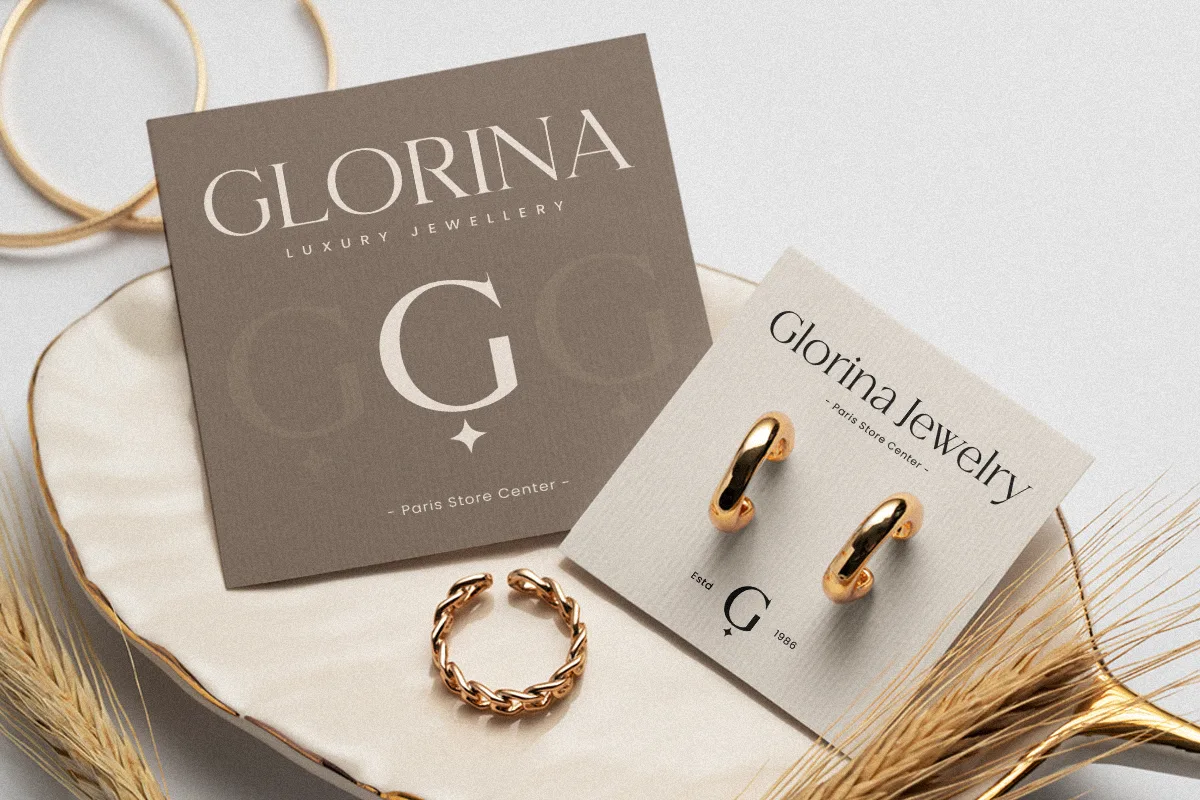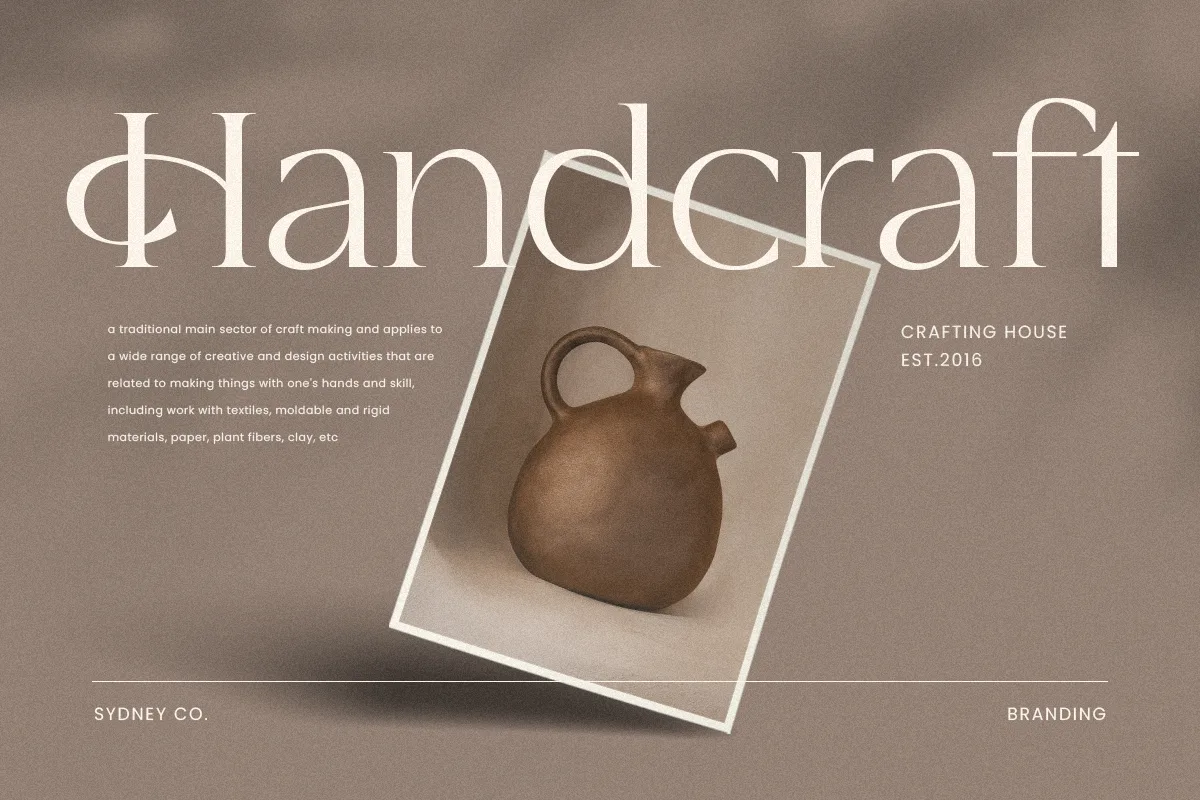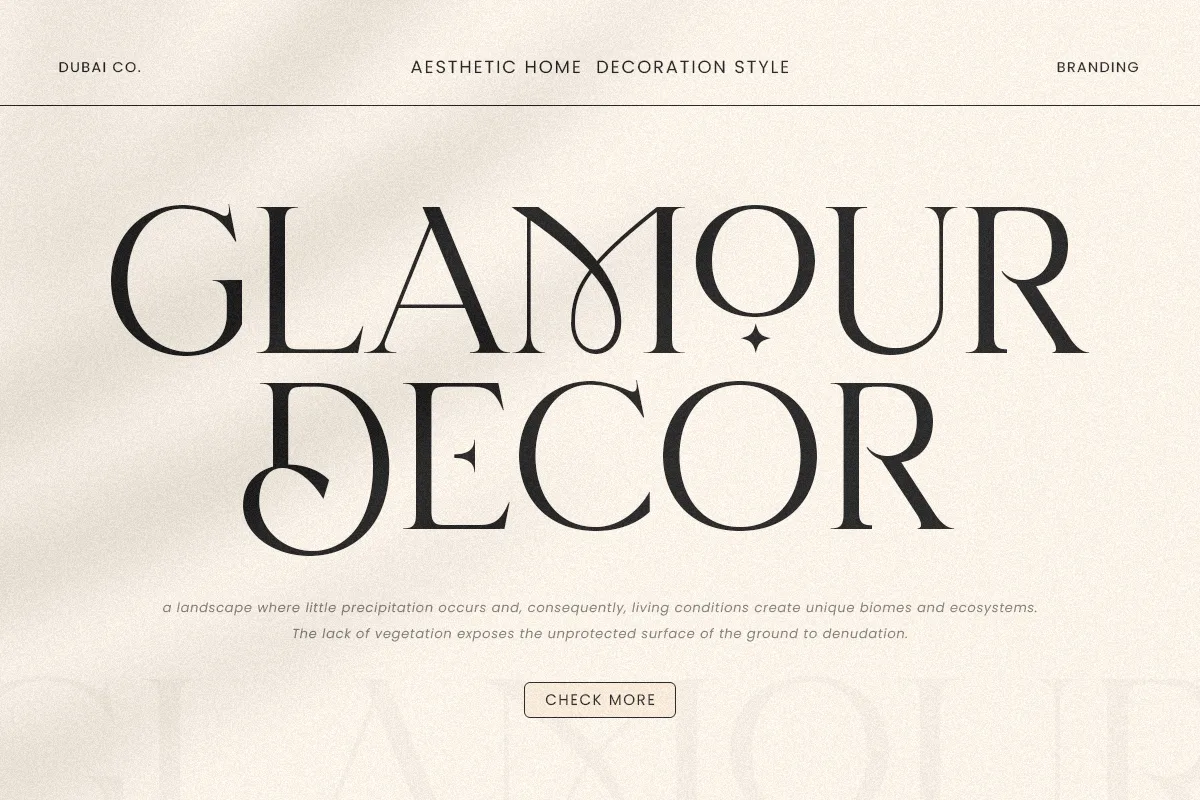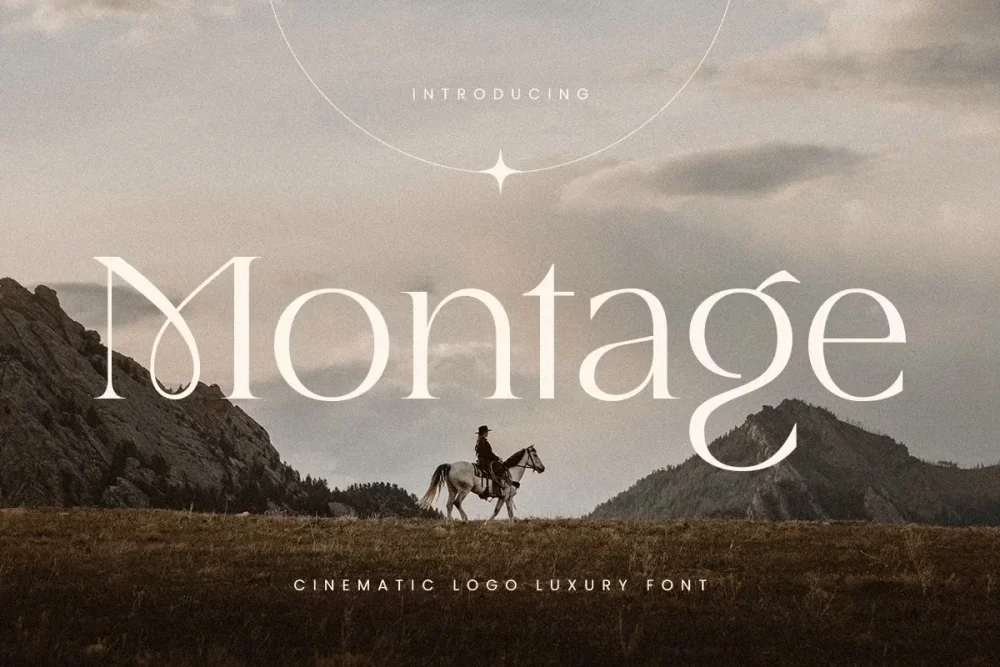
Montage is a cinematic luxury font designed to bring elegance and sophistication to your high-end design projects. Inspired by the timeless beauty of classic cinema, Montage combines modern aesthetics with a touch of vintage glamour. Ideal for creating stunning logos and refined branding materials, this font is perfect for designers who want to make a bold statement with their work. Elevate your design projects with Montage and bring a touch of cinematic luxury to your work.